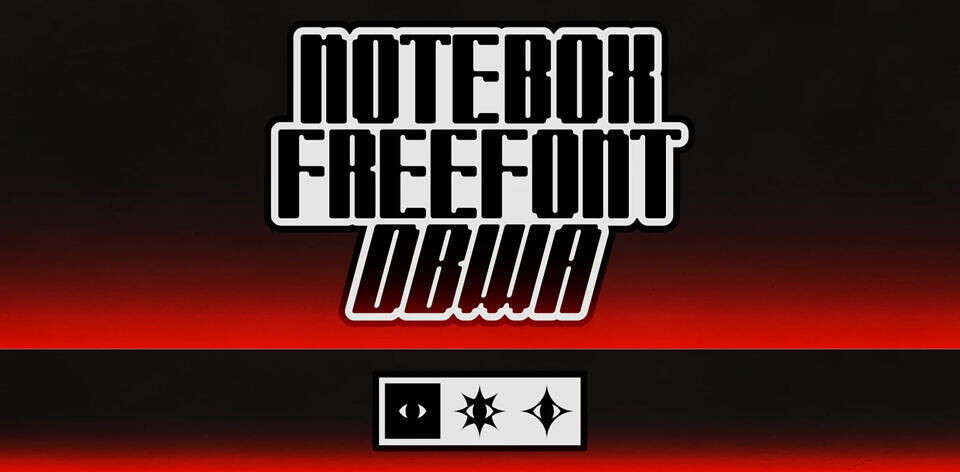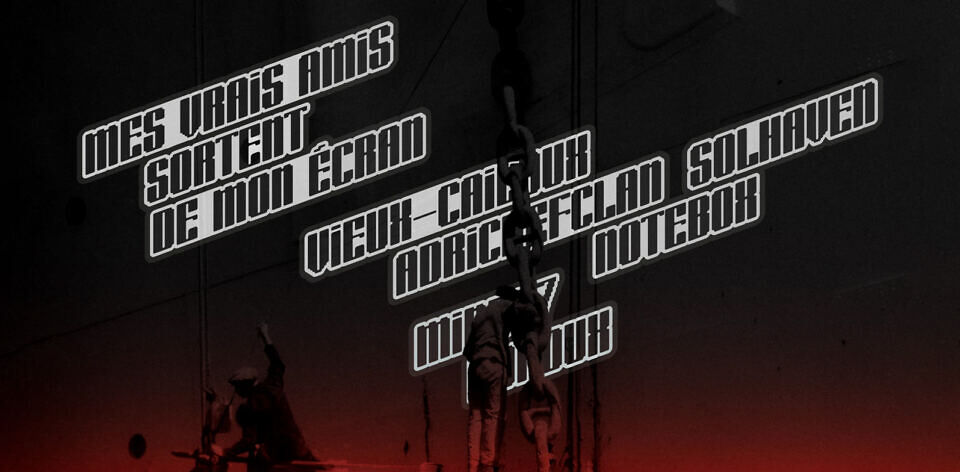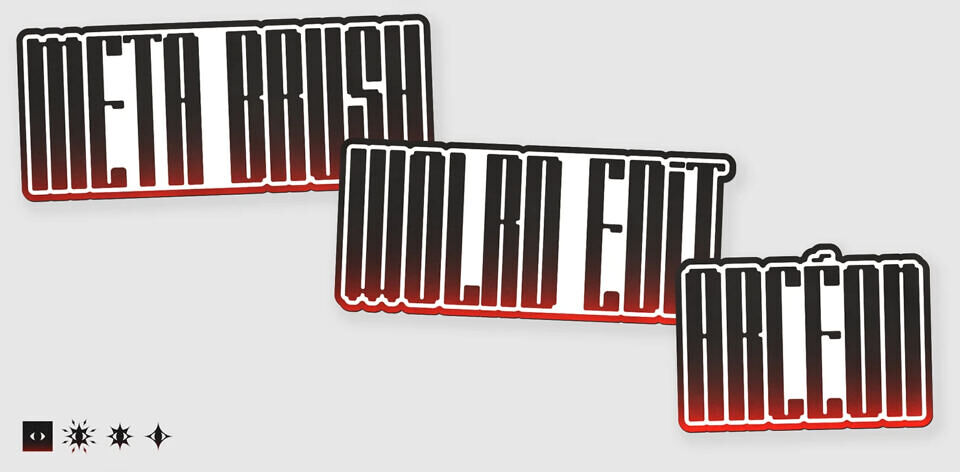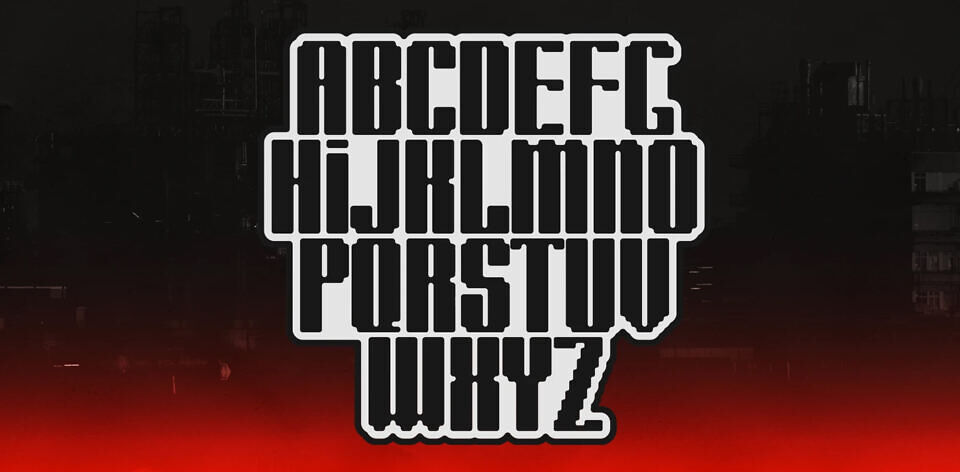
NOTEBOX is a high-impact display typeface designed by DBWA that embodies a fusion of industrial brutalism and Y2K cybercore aesthetics. This extra-condensed and ultra-bold font features a modular structure built on a rigid grid, characterized by sharp beveled corners and distinctive aliased “staircase” terminals that evoke a vintage digital or pixel-art feel.
The comprehensive set includes a full uppercase alphabet, numerals, and essential accented characters, making it a versatile tool for international projects. Accompanied by a dynamic oblique/italic version, NOTEBOX is specifically engineered for high-visibility applications such as streetwear branding, futuristic UI/UX design, poster layouts, and motion graphics.
Its heavy weight and aggressive verticality ensure maximum space occupancy, providing a powerful visual identity for titles, logotypes, and experimental graphic design projects seeking a bold, technological edge.